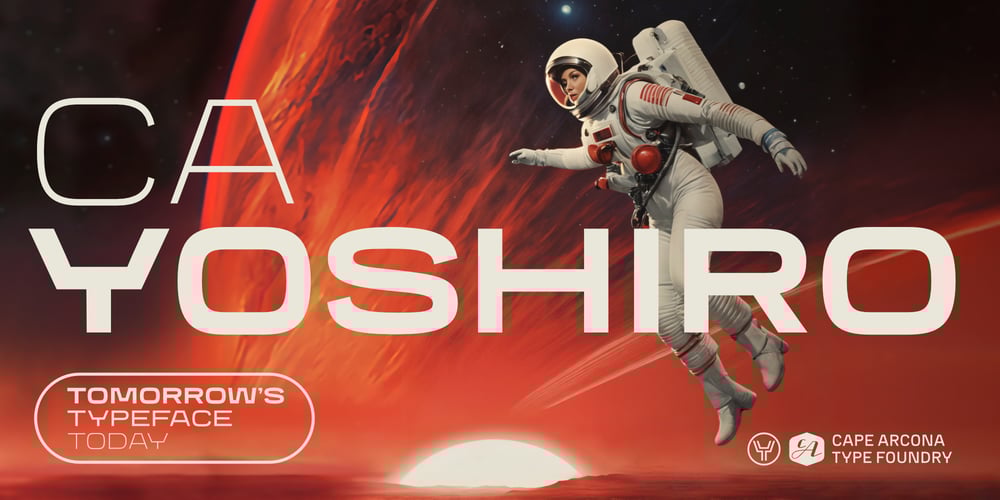
CA Yoshiro Font Family was designed by Thomas Schostok and published by Cape Arcona Type Foundry. CA Yoshiro contains 10 styles and family package options. Tomorrow’s Typeface TodayAre you ready to take your science fiction, action, military films, shows or video games to the next level? Our family of fonts brings a touch of nostalgia and a dash of modernity to your titles and typography. The CA YOSHIRO “Wide” style bears a striking resemblance to the iconic Eurostile typefaces of the 1960s. It has an immediate sense of familiarity. But what sets it apart is its contemporary, fresh sci-fi design. It’s the perfect blend of classic and cutting-edge, delivering an unprecedented, unconsumed style that promises to captivate audiences like never before. The CA YOSHIRO “Normal” style can also be used for a variety of other projects that require a normal width and just need to show a light technical touch without immediately suggesting a sci-fi reference.In addition, CA Yoshiro has subtle similarities to the monospace fonts commonly used on computer displays and screens. These fonts are the foundation of written programming code and sequences, lending a distinctive character to the digital realm.